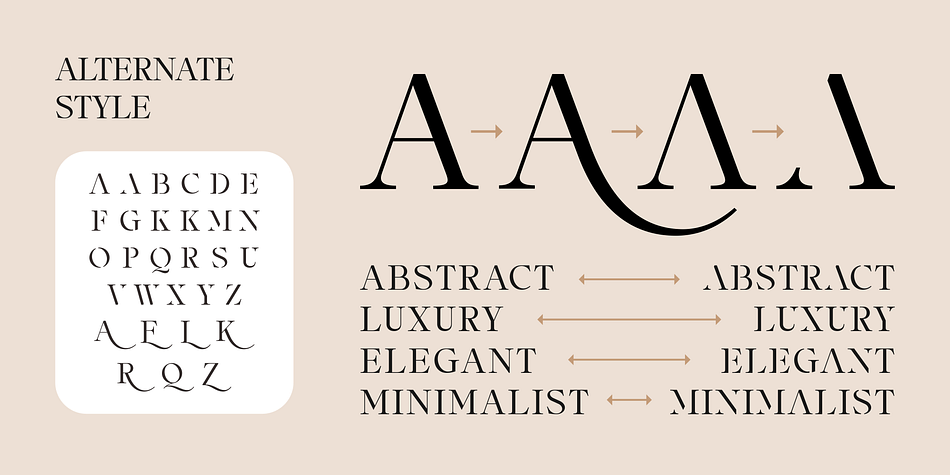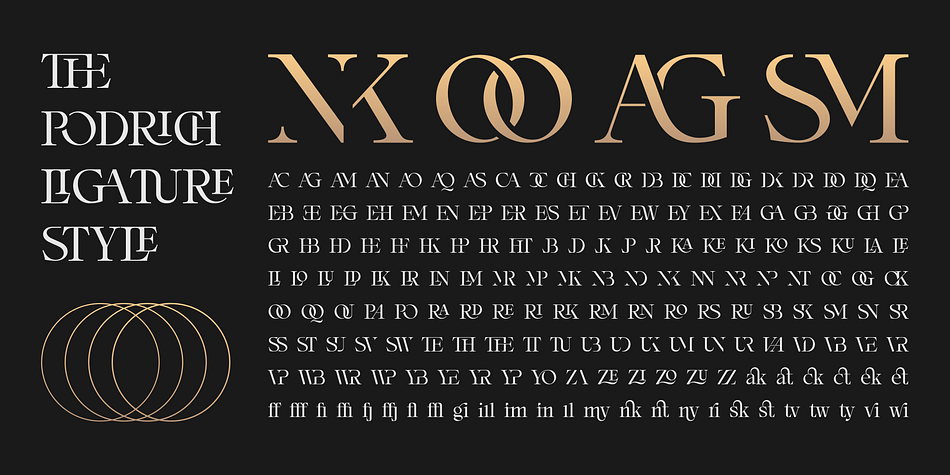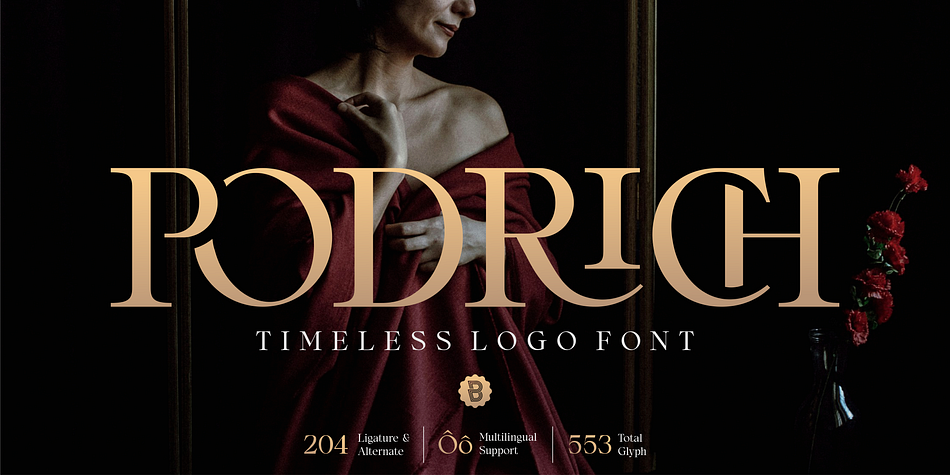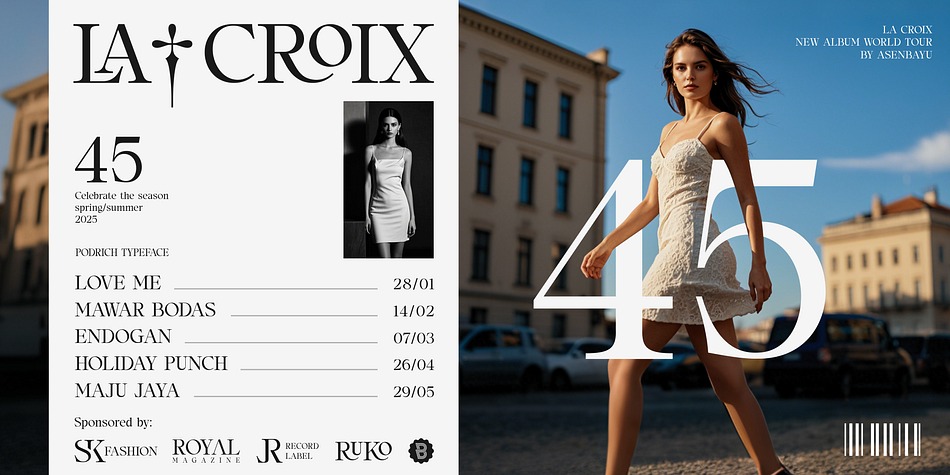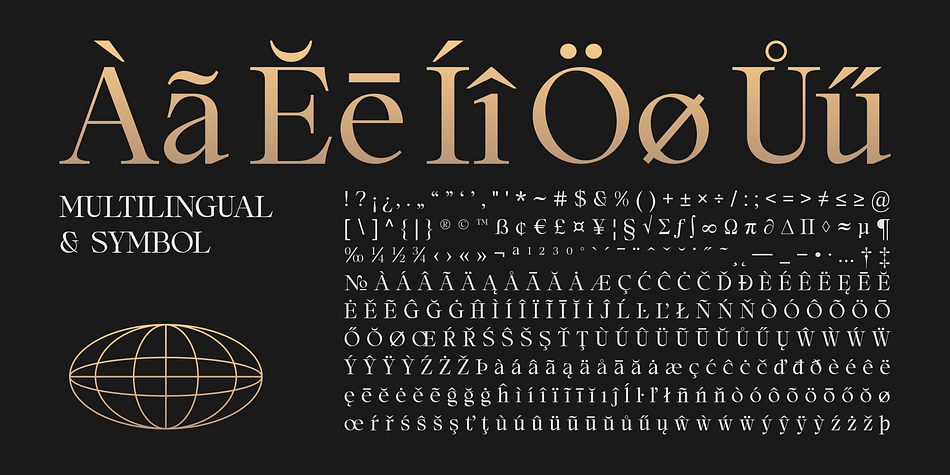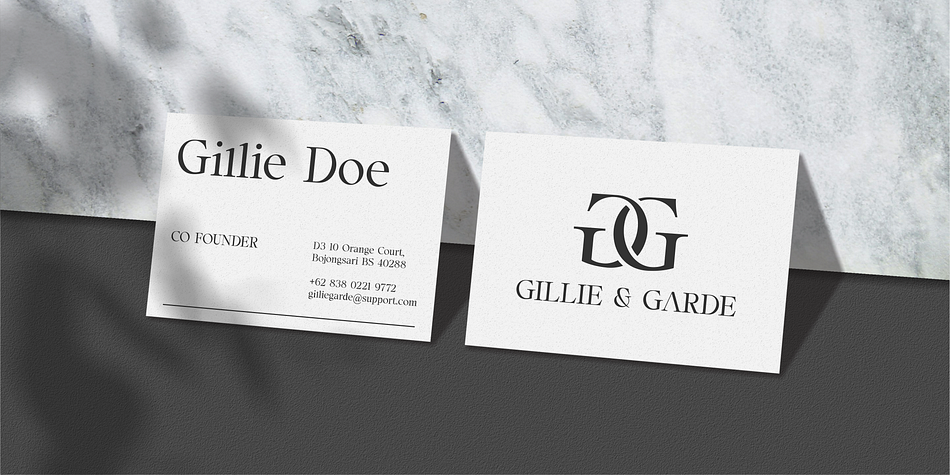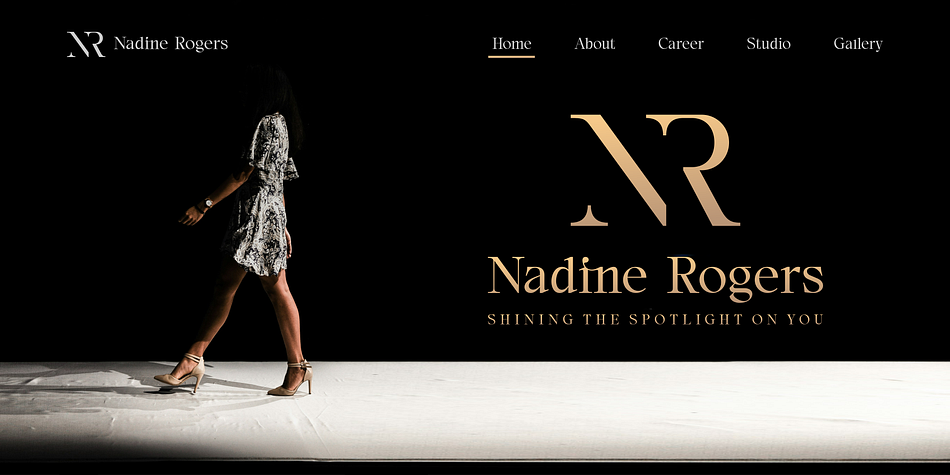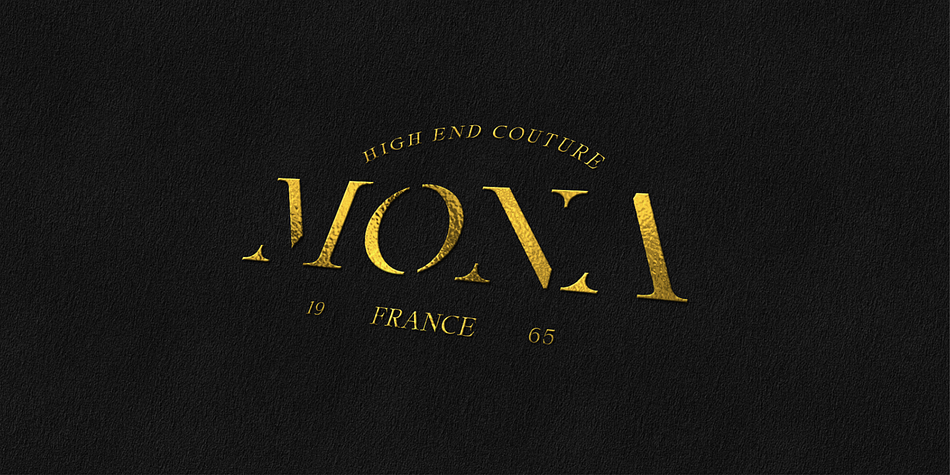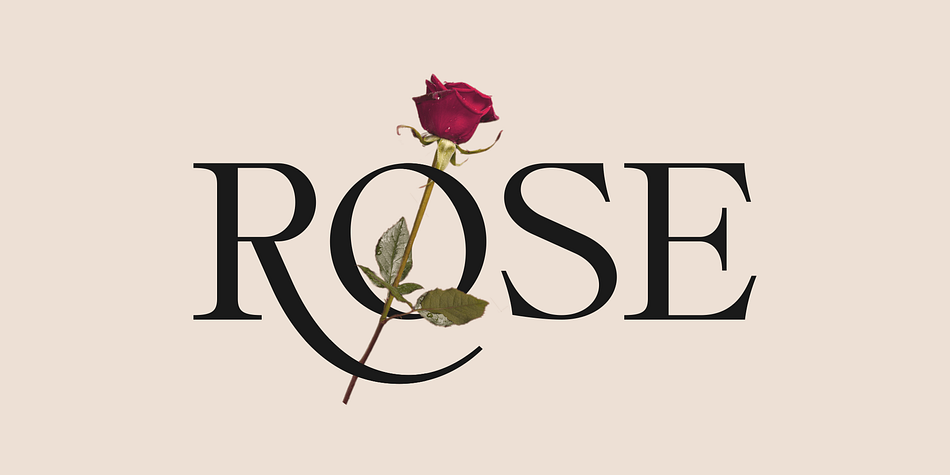
PODRICH
Designed by Bayu Noor Witarsa, PODRICH is a serif font family published by Asenbayu.
Podrich is an elegant timeless serif logo font that evokes sophistication, classic, and a sense of refined luxury. It features significant contrast between thick and thin strokes, enhancing legibility and a luxurious look. It features a lot of alternates and ligatures to complement your design needs. It is perfect for desired logos, poster designs, fashion, and premium branding due its ability to convey sophistication, heritage, and quality.
Font Features:
- Logo Design Material
- Standard Glyph
- Stylistic Alternate & Ligature
- Numeral & Punctuation
- Multiple Languages Supported